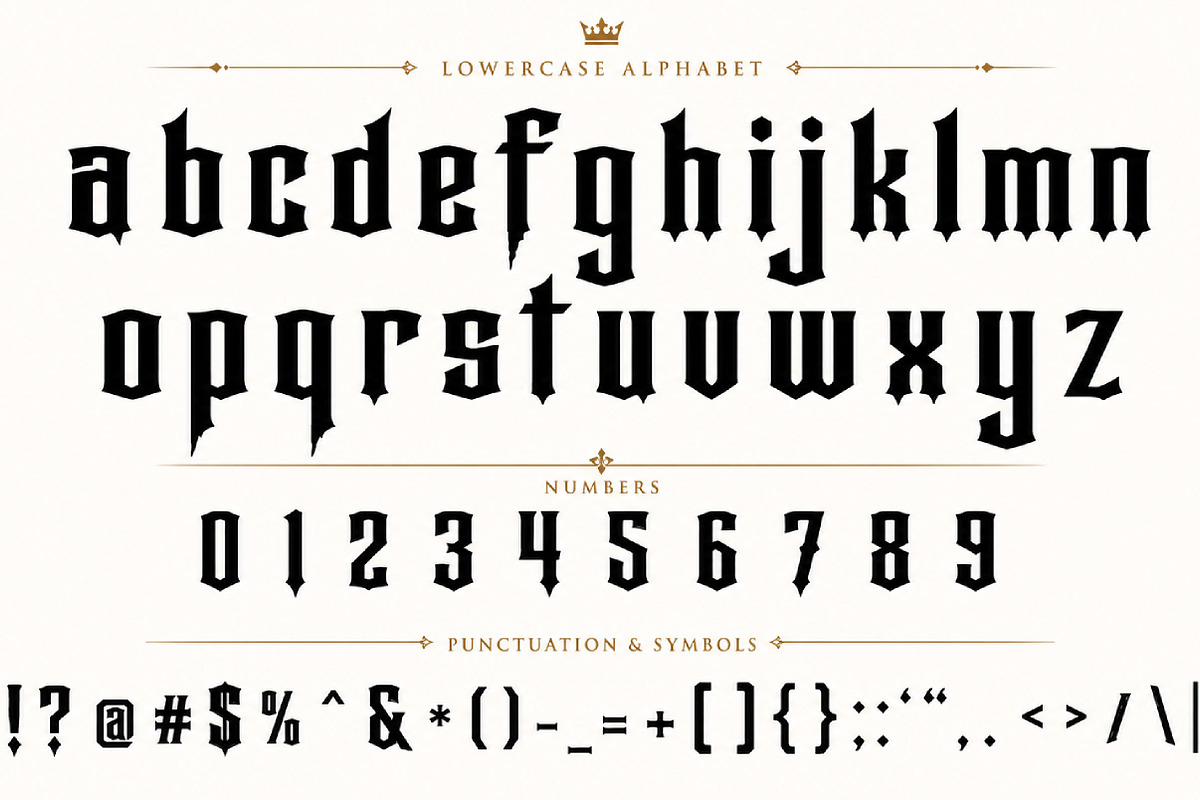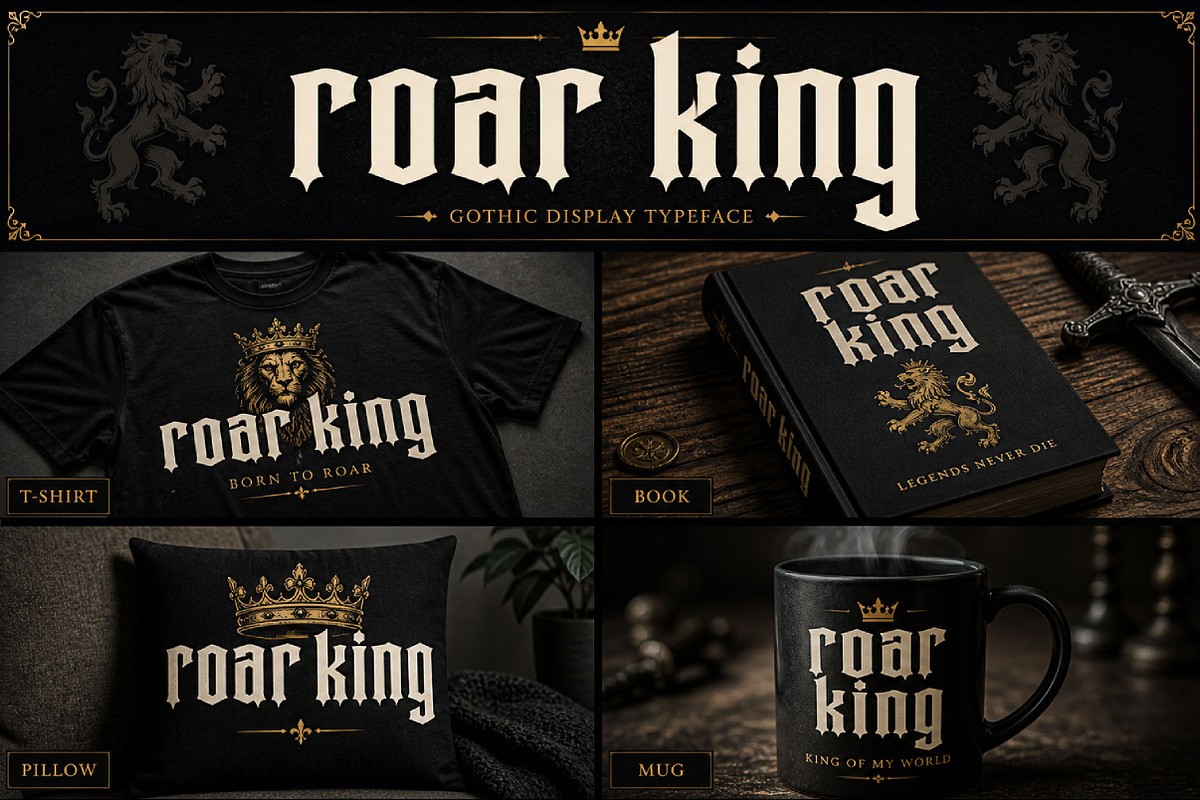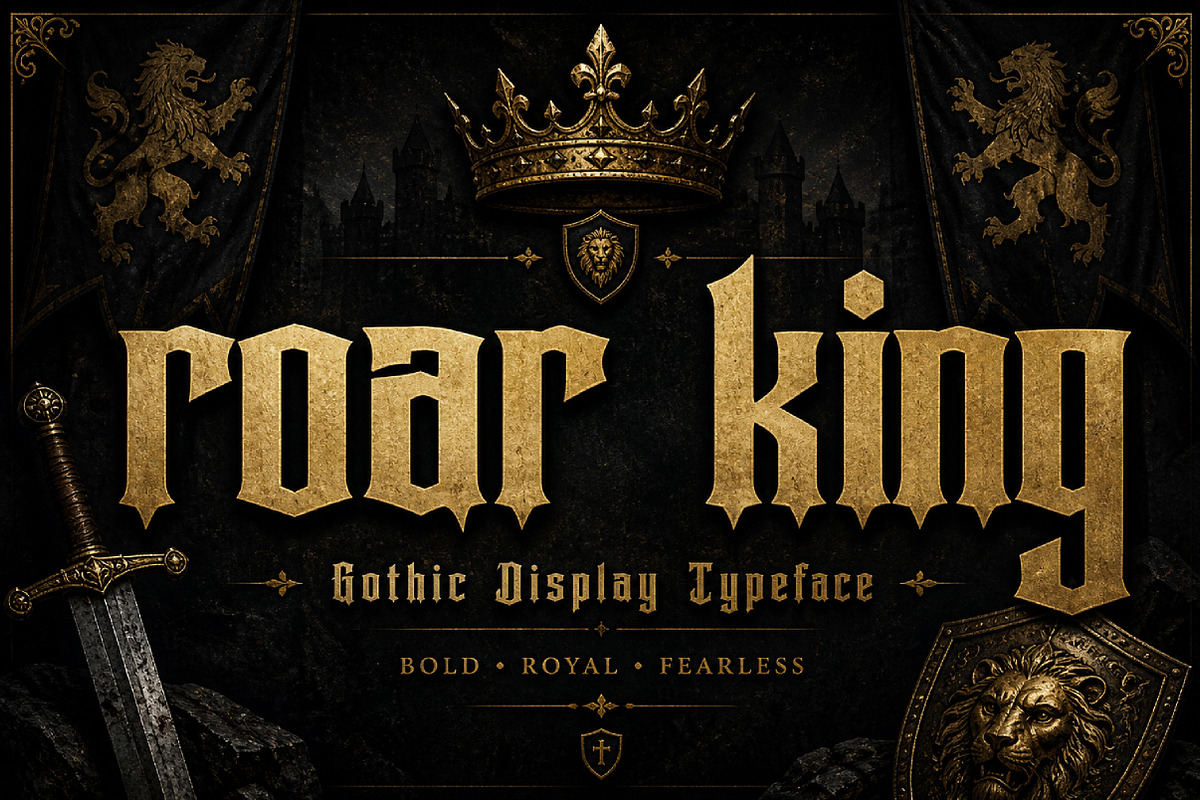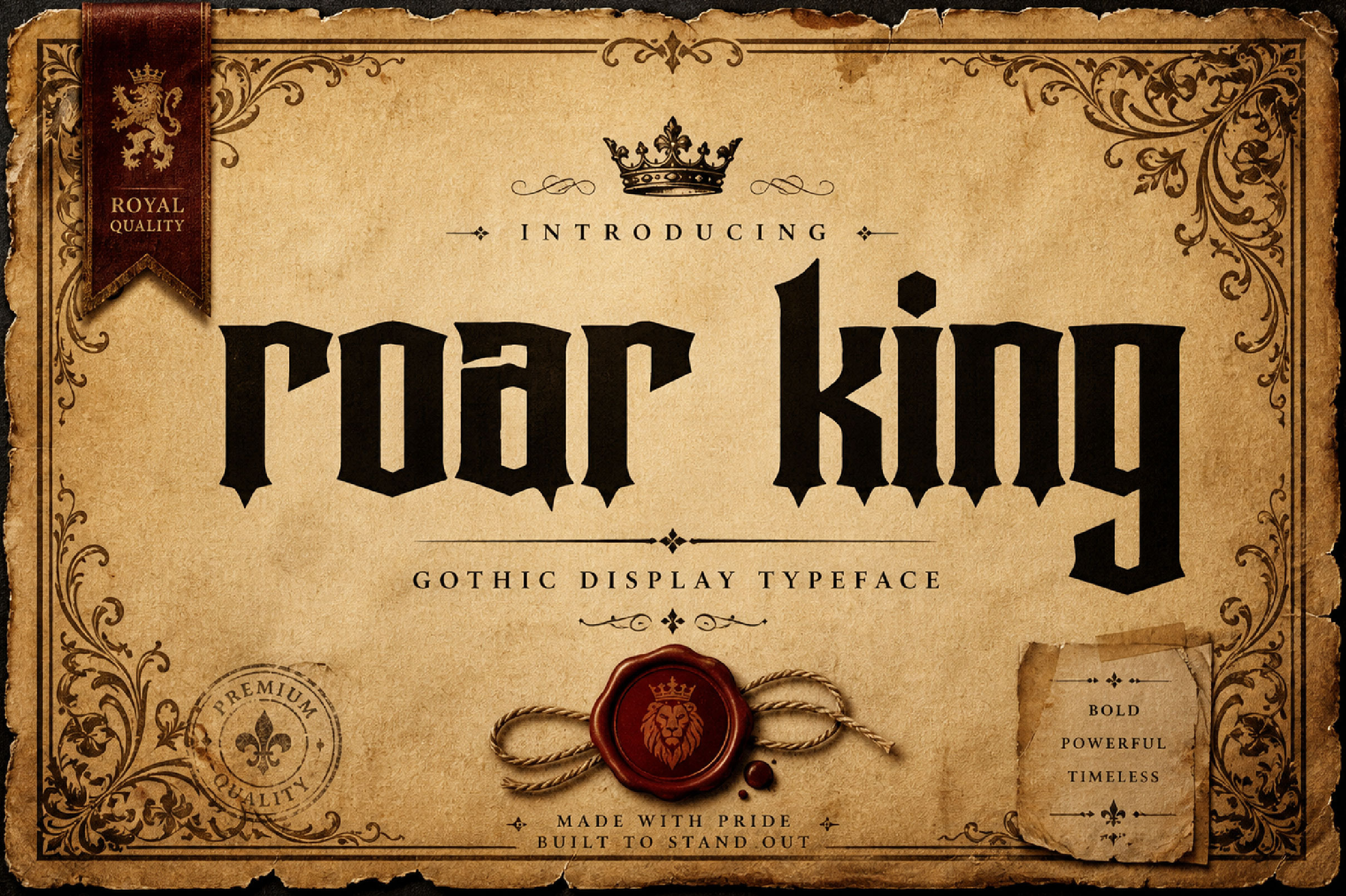
Roar King – Bold Gothic Display Font
Roar King is a bold gothic display font with strong blackletter-inspired shapes, sharp edges, and a powerful medieval attitude. Perfect for logos, posters, album covers, branding, apparel, and dark creative projects.
Roar King is a powerful gothic display font designed to create bold, fearless, and dramatic typography. With its strong letterforms, sharp cuts, and blackletter-inspired structure, this font brings a fierce medieval character to any design.
Its heavy and commanding style makes Roar King perfect for projects that need strength, attitude, and visual impact. Use it for logos, posters, album covers, gaming graphics, event designs, merchandise, apparel, tattoo artwork, and bold branding.
Whether you are creating a gothic headline, royal-themed logo, dark music cover, or aggressive streetwear design, Roar King delivers a strong and unforgettable typographic presence.
Logos and branding
Gothic posters
Album covers
Gaming graphics
Apparel and merchandise
Tattoo-style artwork
Event graphics
Streetwear designs
Medieval themes
Bold display typography
Bold gothic style
Sharp blackletter-inspired forms
Strong medieval character
Perfect for display use